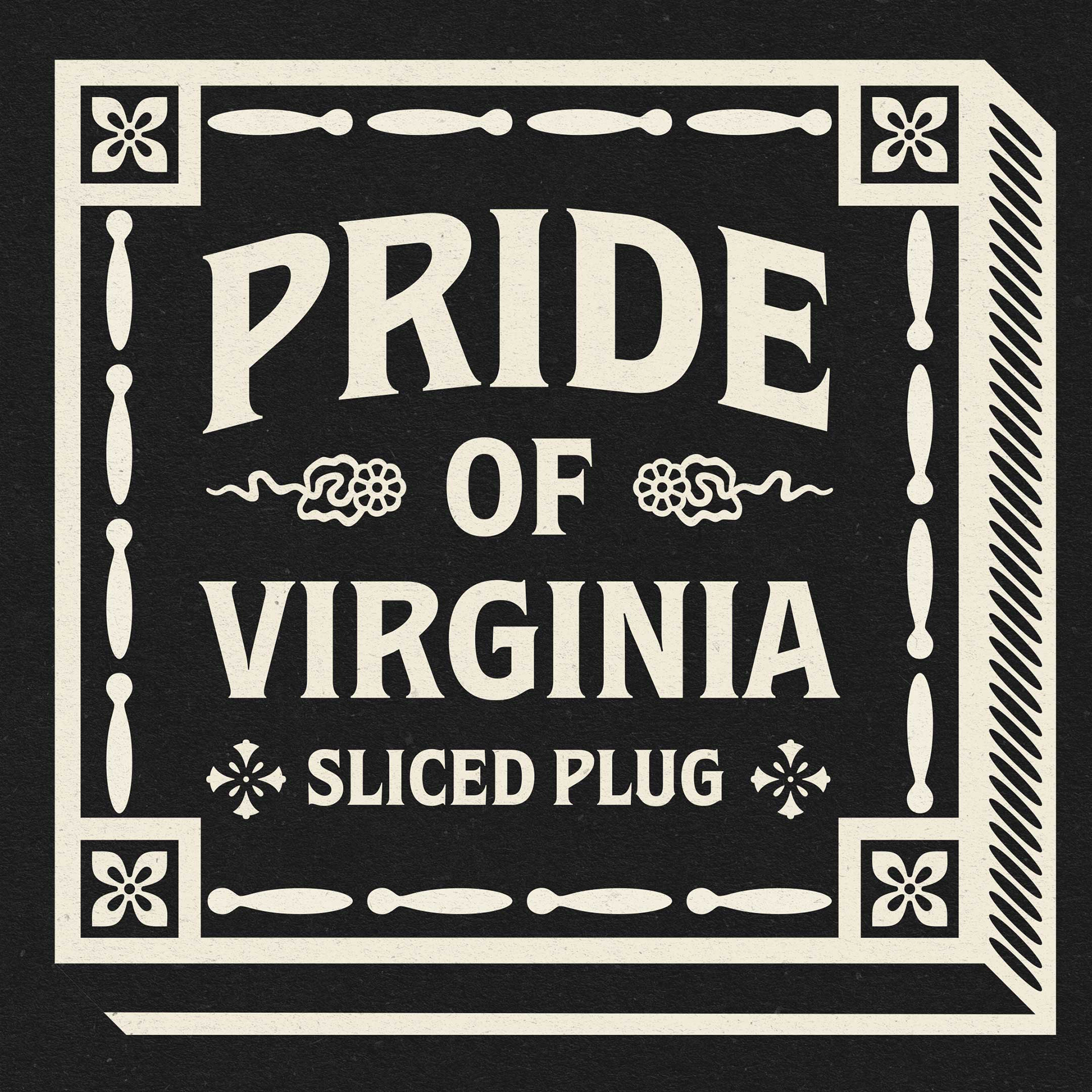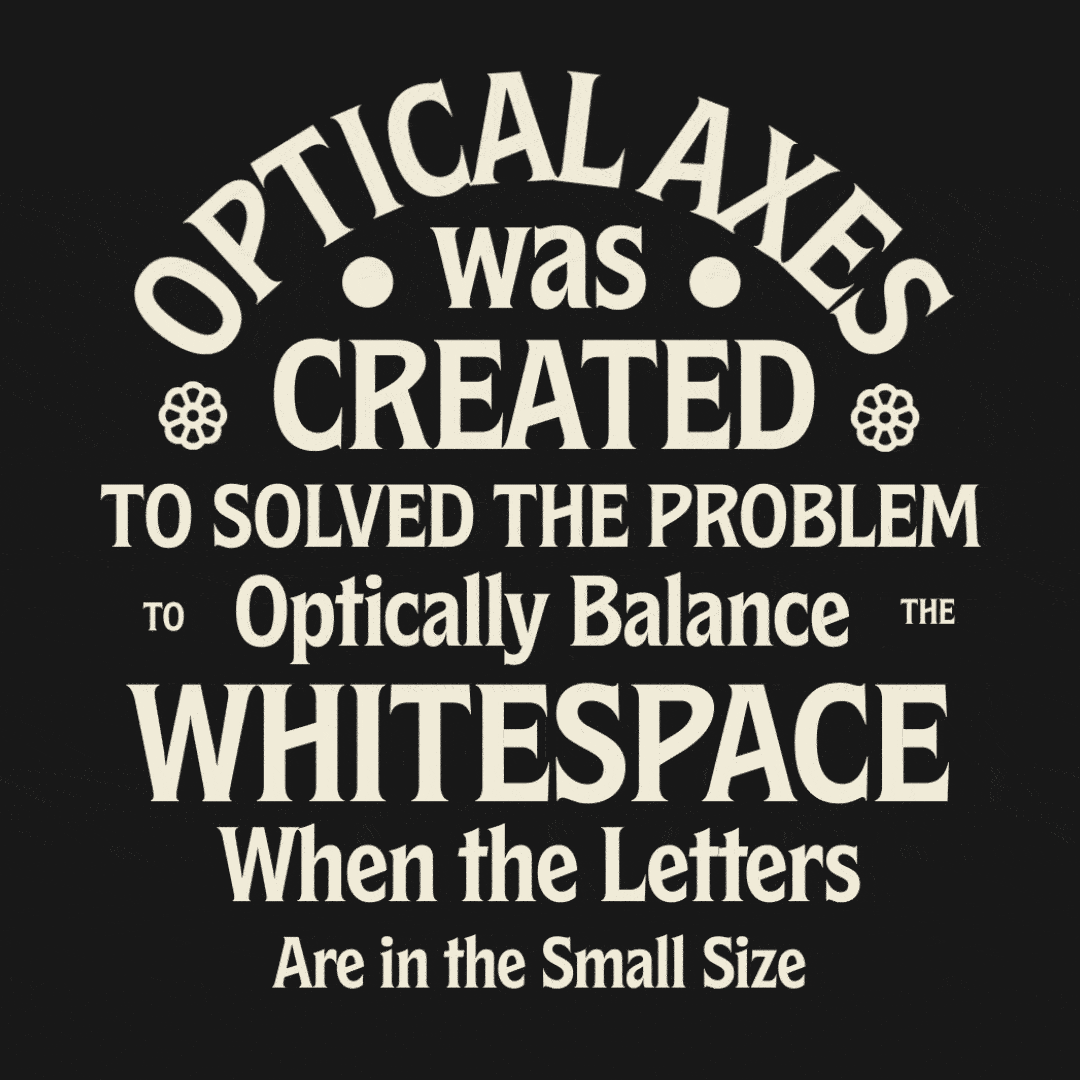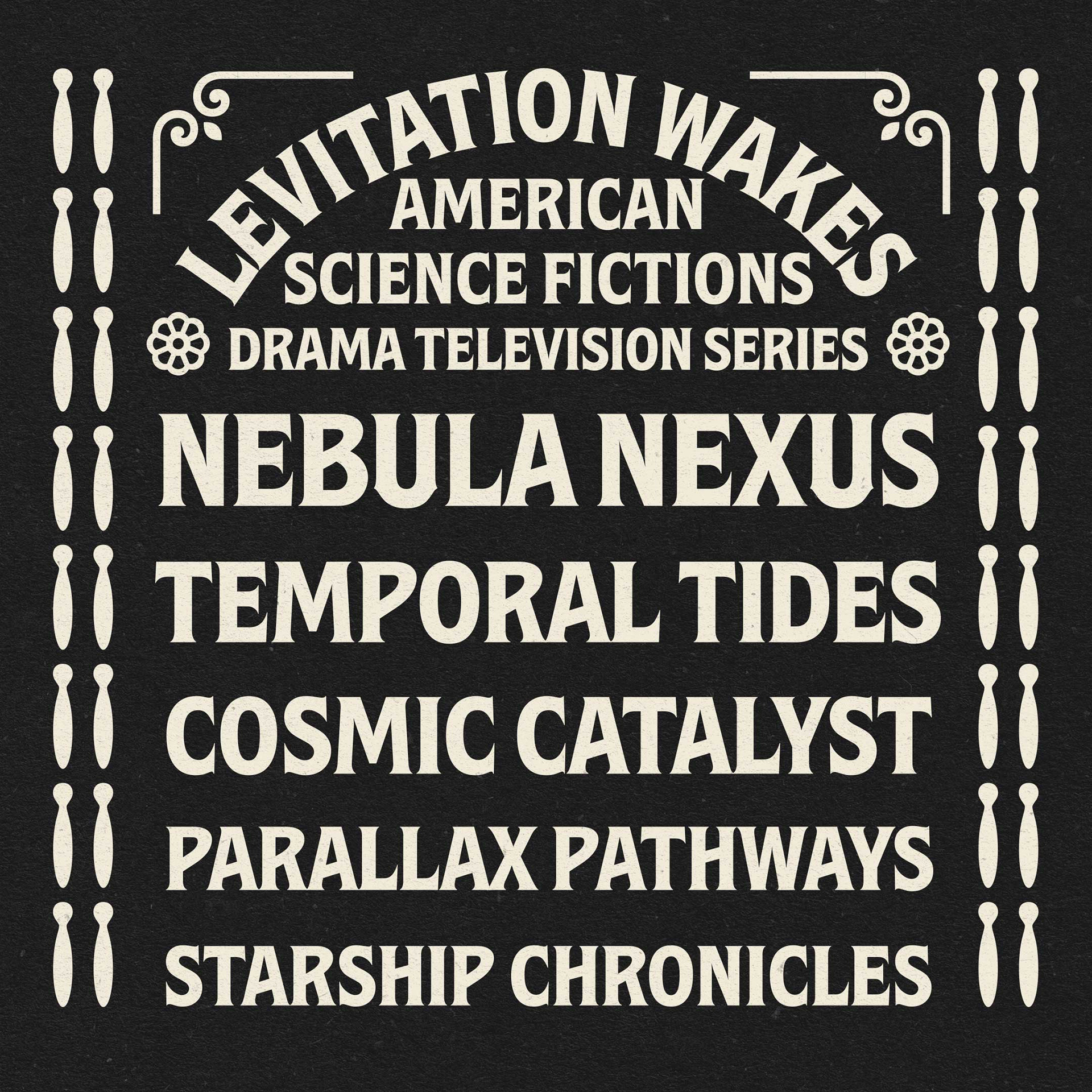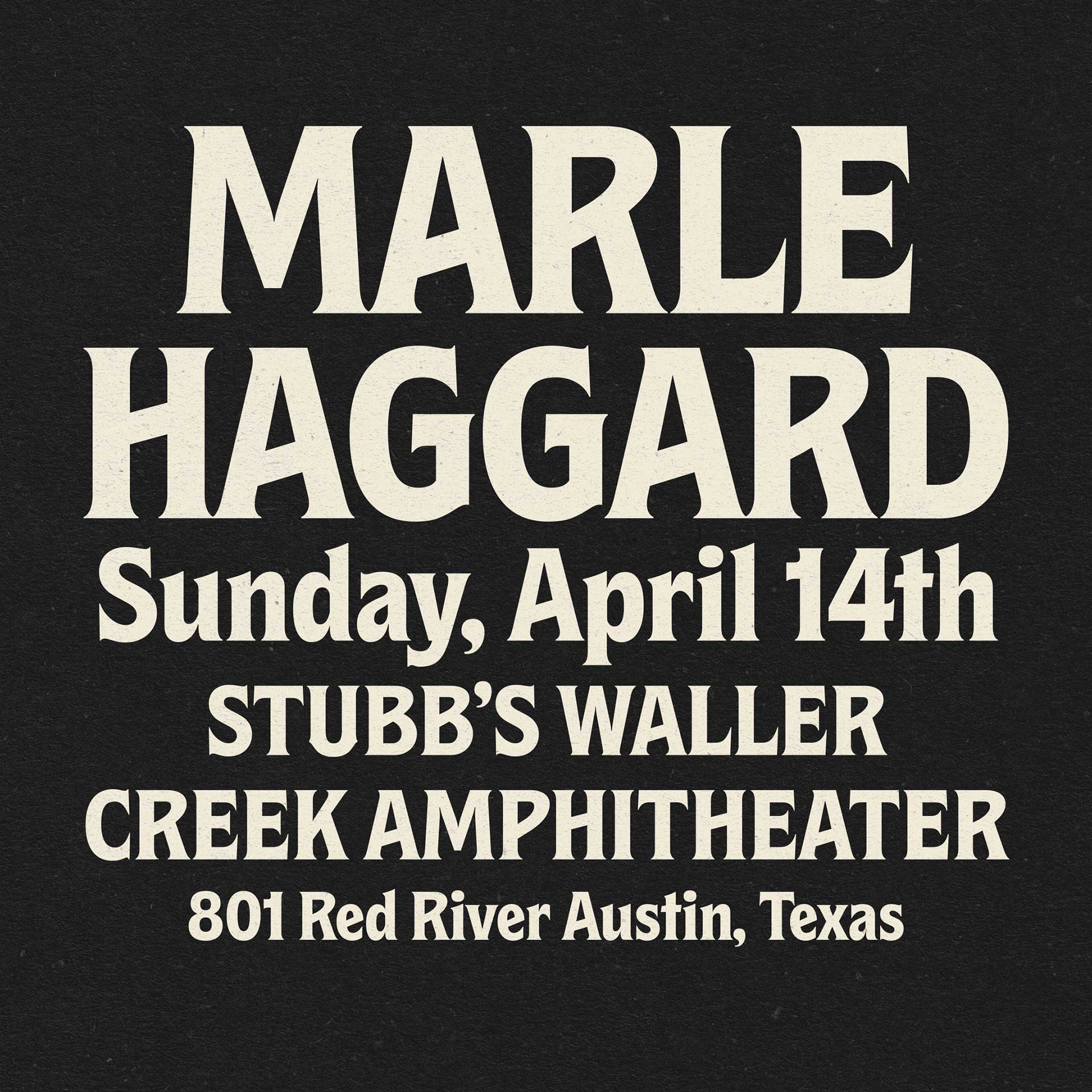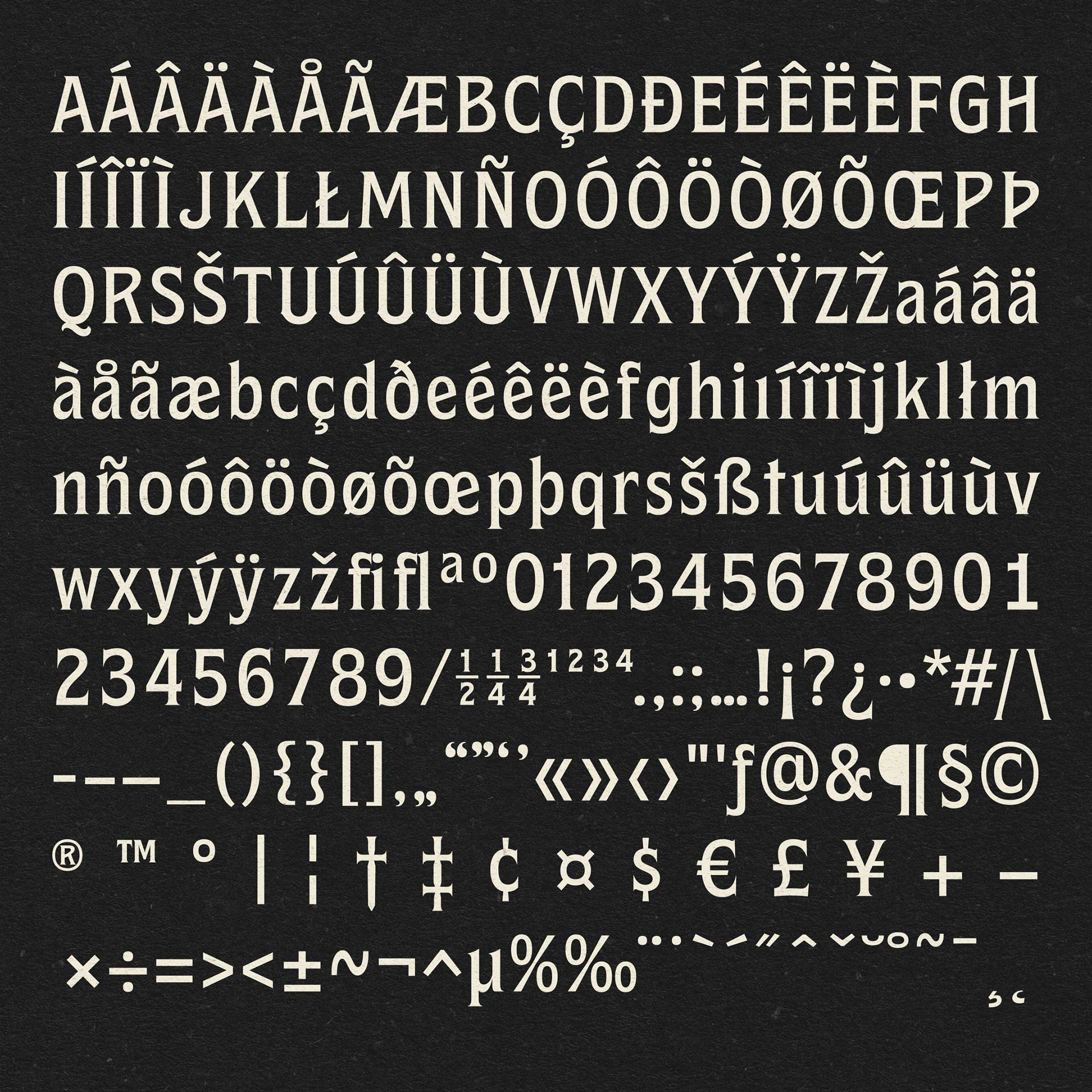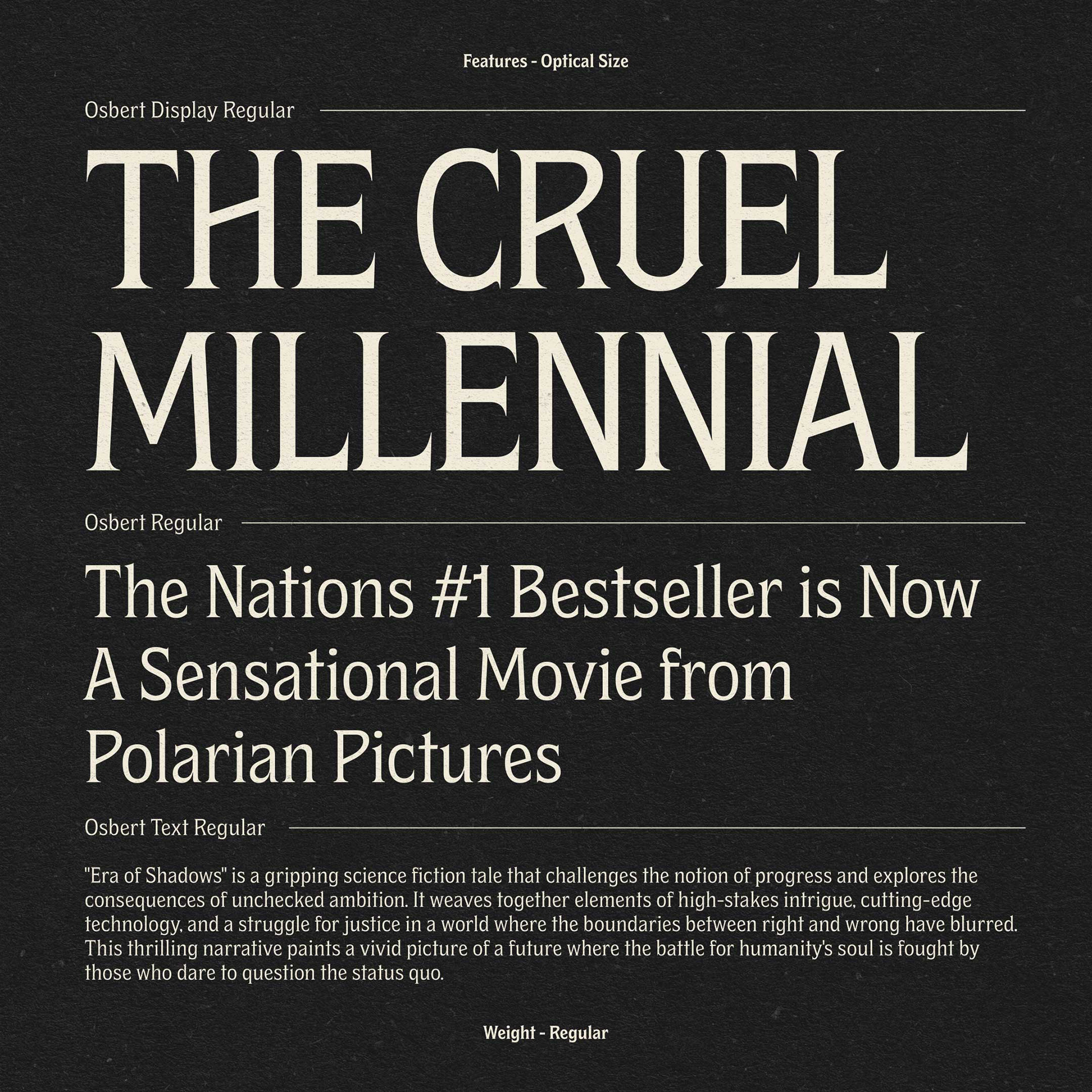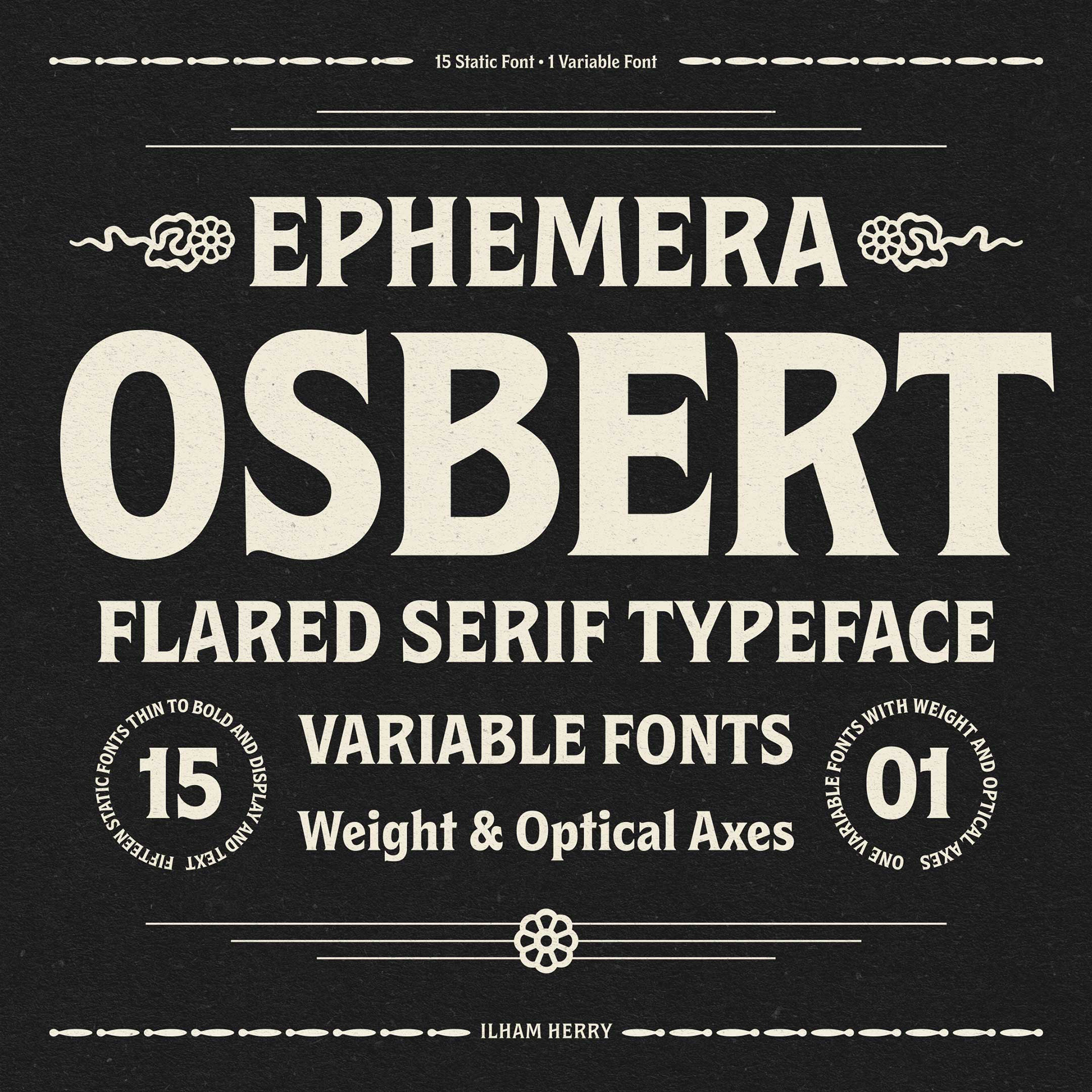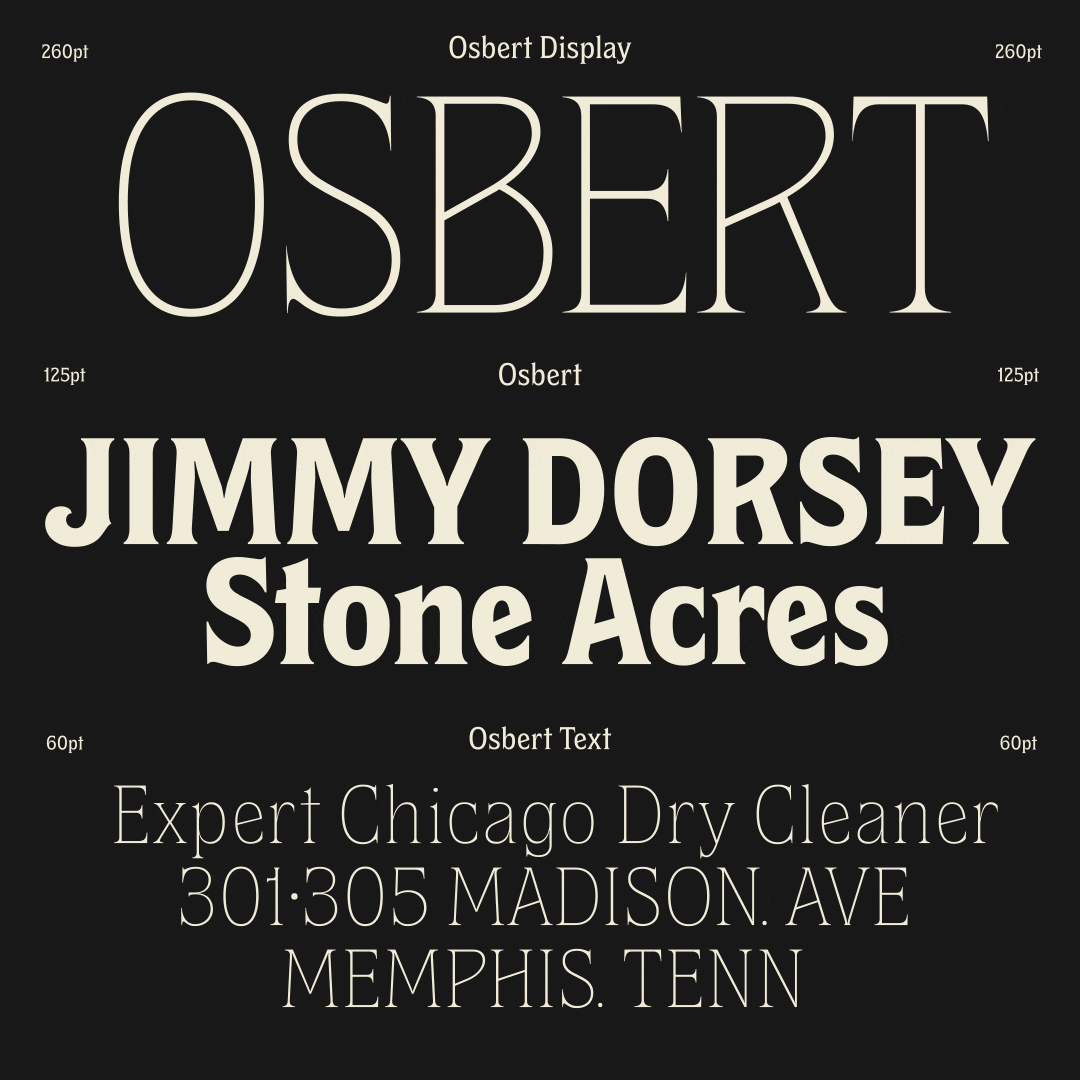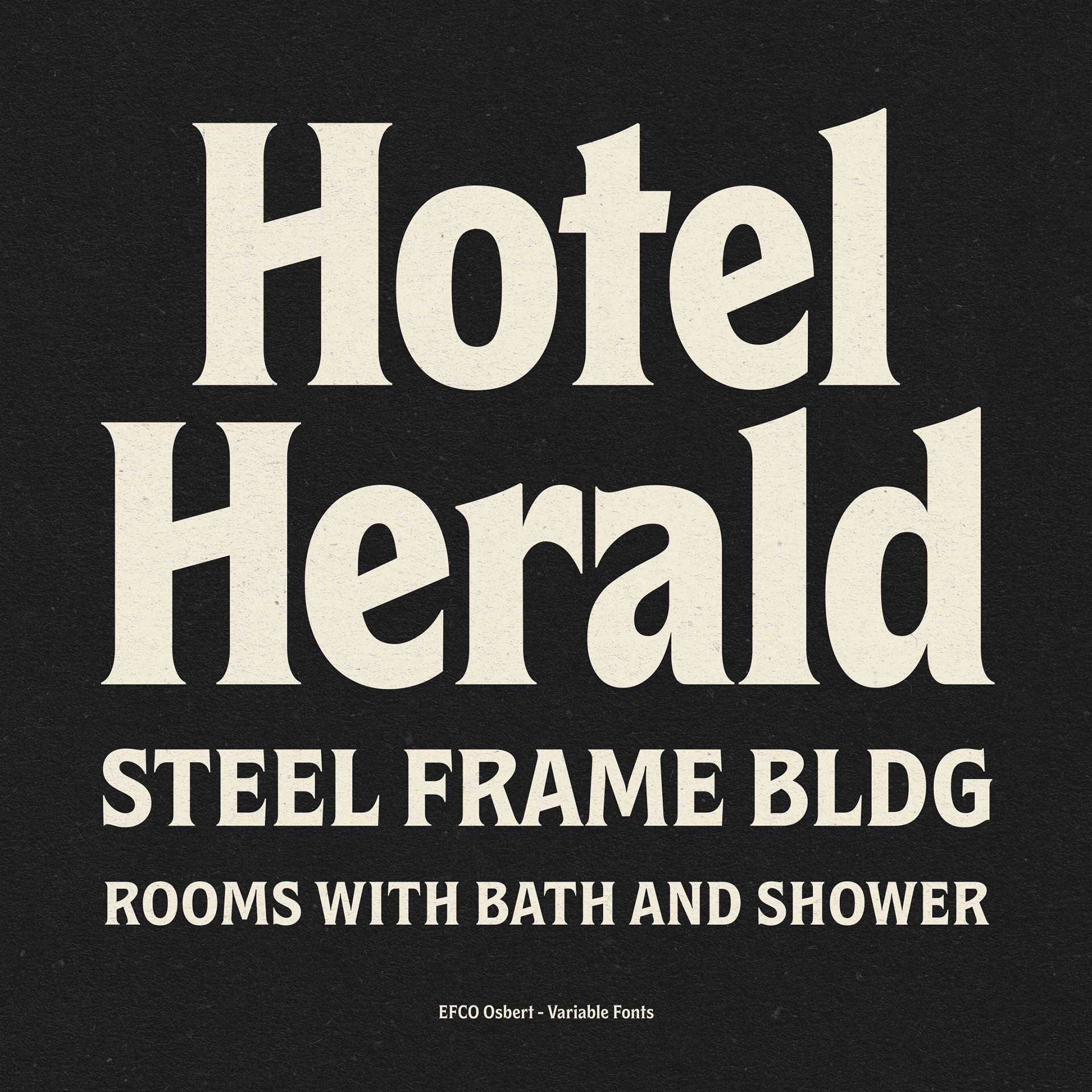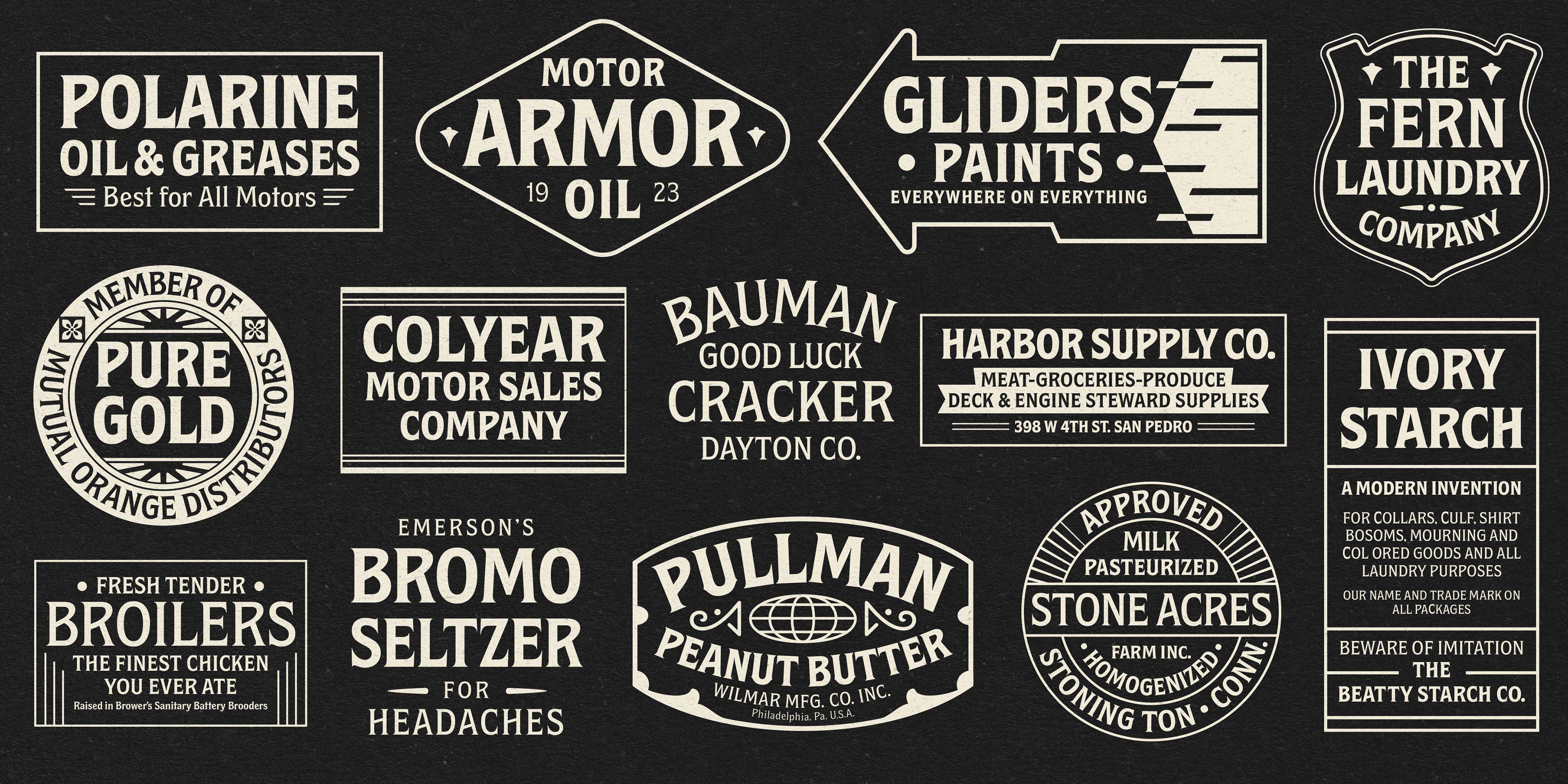
Meet Osbert, a font inspired by old tin labels with a cool modern twist, with flared serifs and diagonal bars. There are 15 static styles and 1 variable font. There are three sub-families namely text, regular, and display versions, to create balanced compositions more easily, whatever the size. Osbert likes strong, classic characteristics with a modern twist.